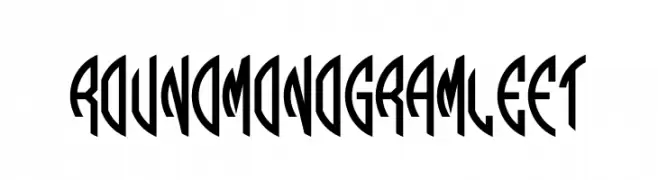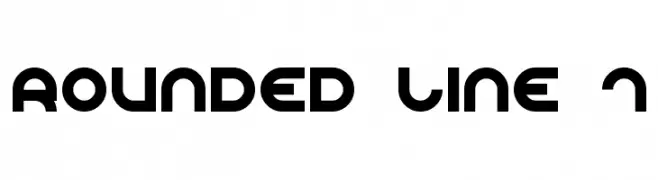
A bold, geometric font with a monogram style, featuring sharp angles and a modern look.
A bold, geometric monogram-style font with sharp angles and decorative cutouts.
A playful, hand-drawn font with irregular, whimsical characters.
A digital-inspired font with characters formed by rounded square dots, ideal for tech themes.
A bold, geometric font with rounded edges and a modern, futuristic style.
A pixelated, retro-style font with rounded edges, ideal for digital-themed designs.
A modern, rounded sans-serif font with a friendly and approachable style.
A modern, rounded font with a clean and approachable style.
A bold, brush-style font with a playful, artistic flair.
A bold, decorative symbol font featuring military and national insignias.